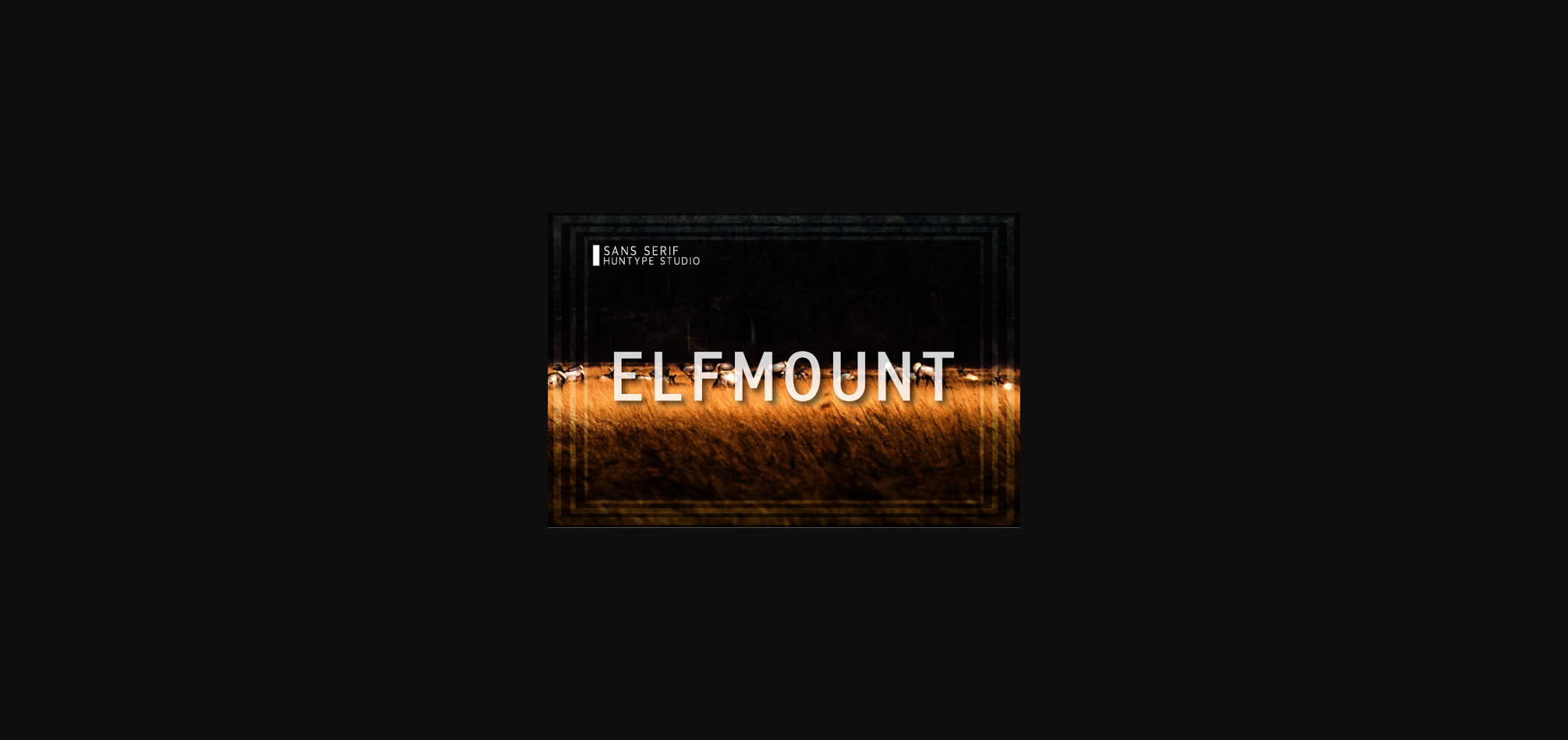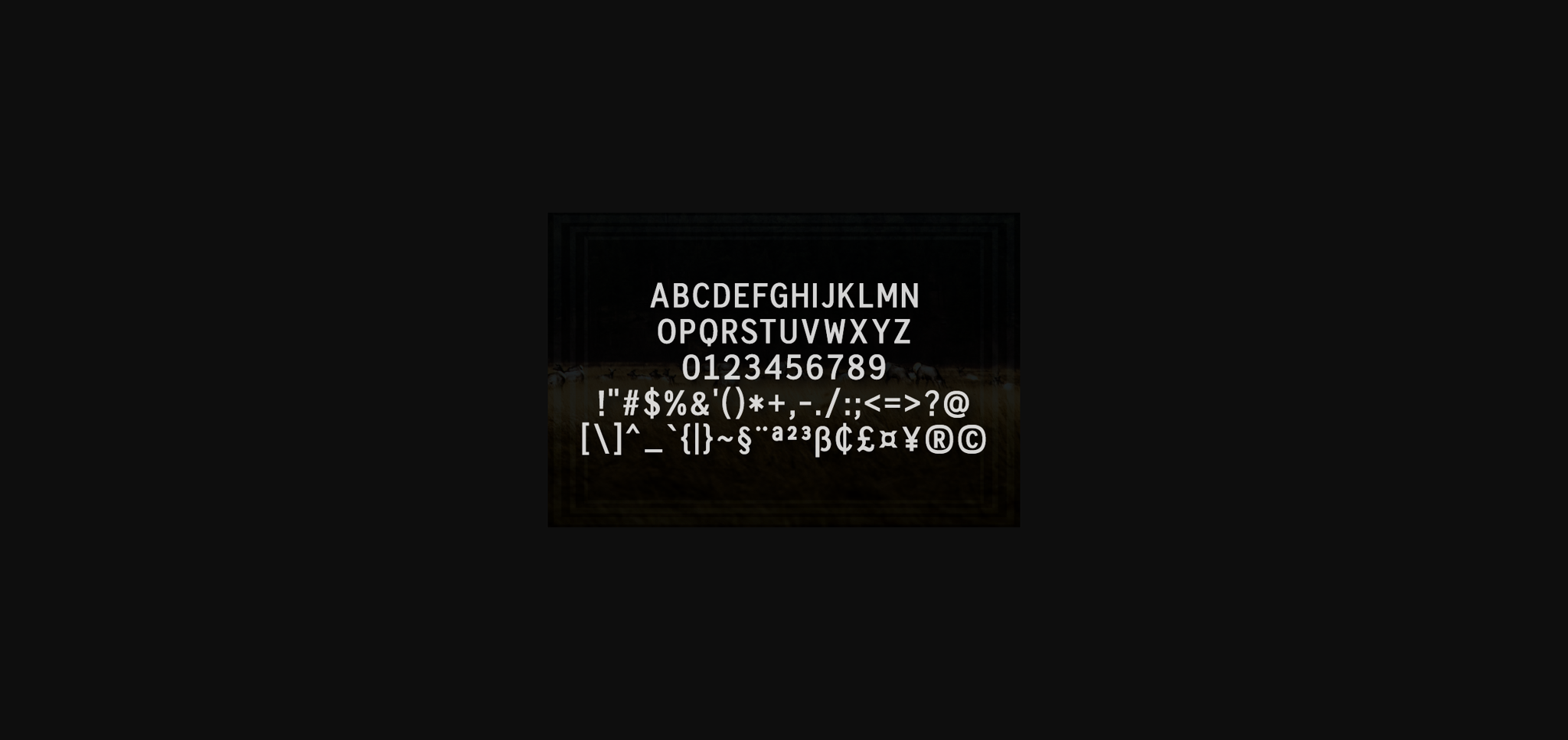
Elfmount Font
About Elfmount Font
Elfmount is a tall and clean sans serif font. It will look particularly adept when used in logos, branding, packaging design, and much more. This masterfully designed font is a true must-have.